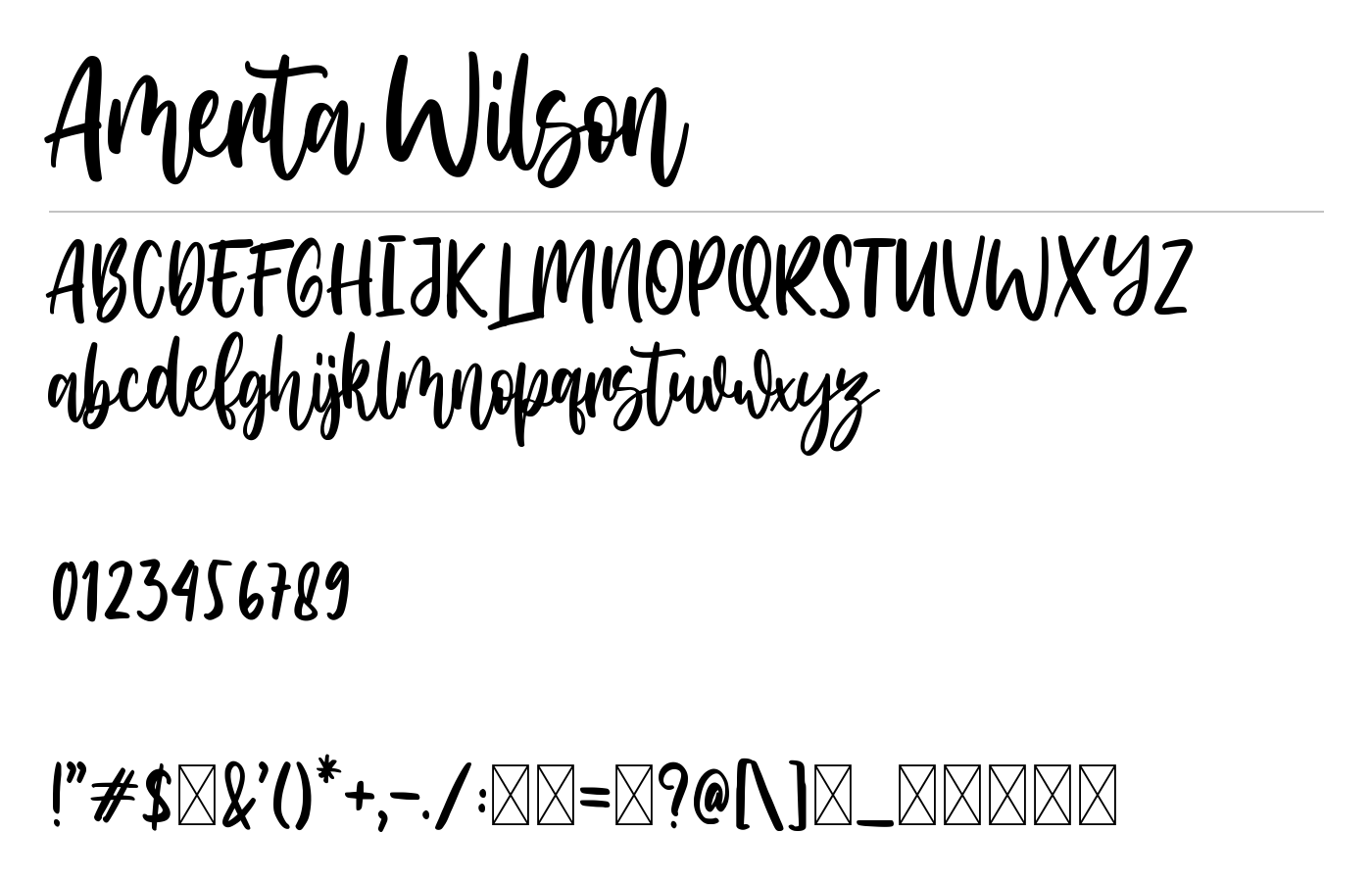
Amerta Wilson is a lively, handwritten script font with a casual and playful feel. Its tall, slightly condensed letterforms feature smooth, flowing strokes that give it an approachable and friendly personality, making it perfect for creative branding, invitations, and informal headlines. This font shines in designs that want to add a personal, artistic touch without sacrificing readability.
Amerta Wilson Font
About Amerta Wilson Font
| Font family | Amerta Wilson Font |
| Designer | M Arif Dwi Prasetyo & Eko Nurcahyo |